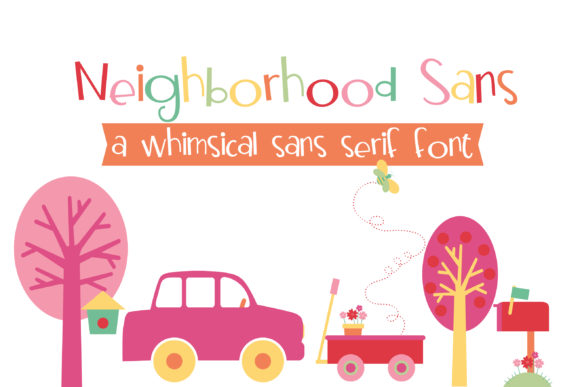
Neighborhood Sans Font
Adorn your digital creations with the Neighborhood Sans Font, a captivating display font that exudes joy and playfulness. This whimsical sans serif font, crafted by the talented Illustration Ink, features a spirited baseline that dances across your designs, adding a touch of whimsy and delight.
Engage your audience with the lively characters of Neighborhood Sans Font, perfect for capturing attention in logos, posters, and social media graphics. Its playful nature shines through in branding, packaging, and website designs, evoking a sense of cheerfulness and good vibes.
Unleash your creativity with Neighborhood Sans Font's extensive character set, including uppercase and lowercase letters, numerals, and symbols. Experiment with different sizes and colors to create eye-catching headlines, vibrant subheadings, and engaging body text that commands attention.
Experience the harmony of Neighborhood Sans Font, designed to complement its sister font, PN Neighborhood. Together, these fonts form a dynamic duo, offering endless possibilities for creative expression. Mix and match them to create stunning contrasts or use them separately to achieve cohesive designs.
Elevate your digital presence with Neighborhood Sans Font, a font that embodies fun, energy, and imagination. Let your designs dance with joy and captivate your audience with every stroke. Download Neighborhood Sans Font today and embark on a creative adventure like no other.